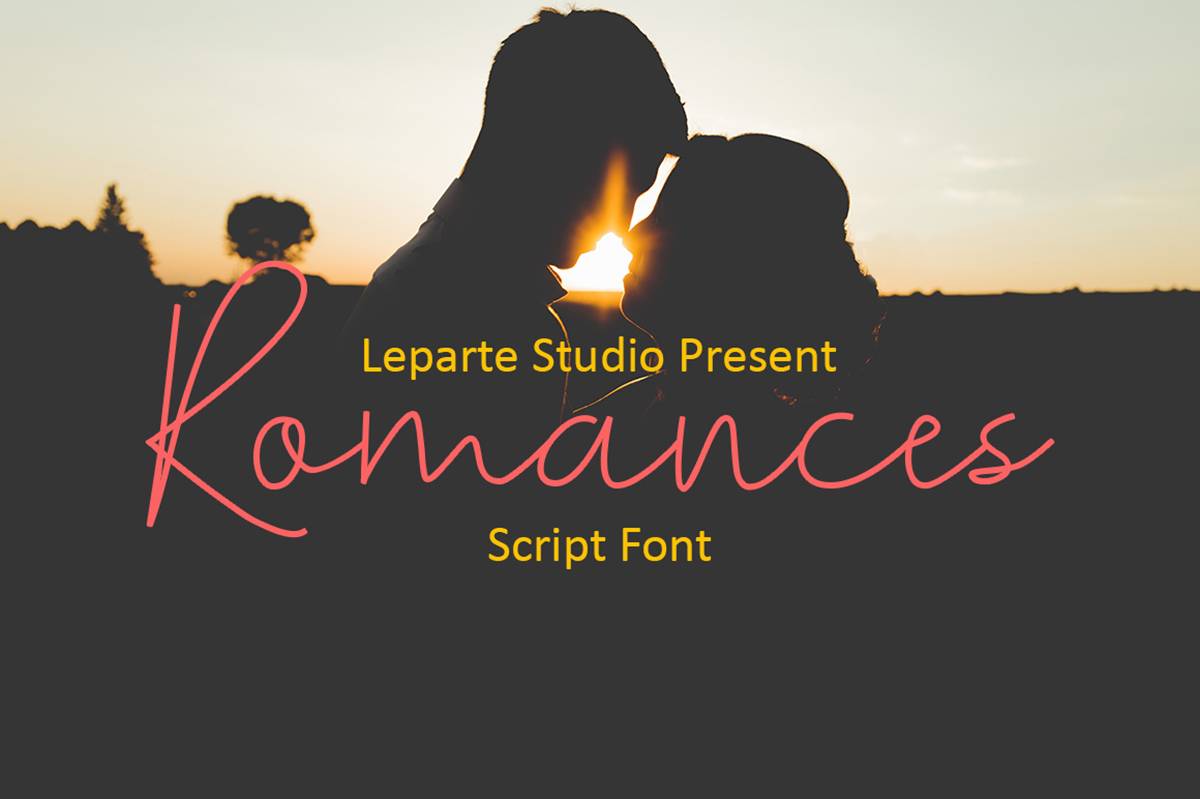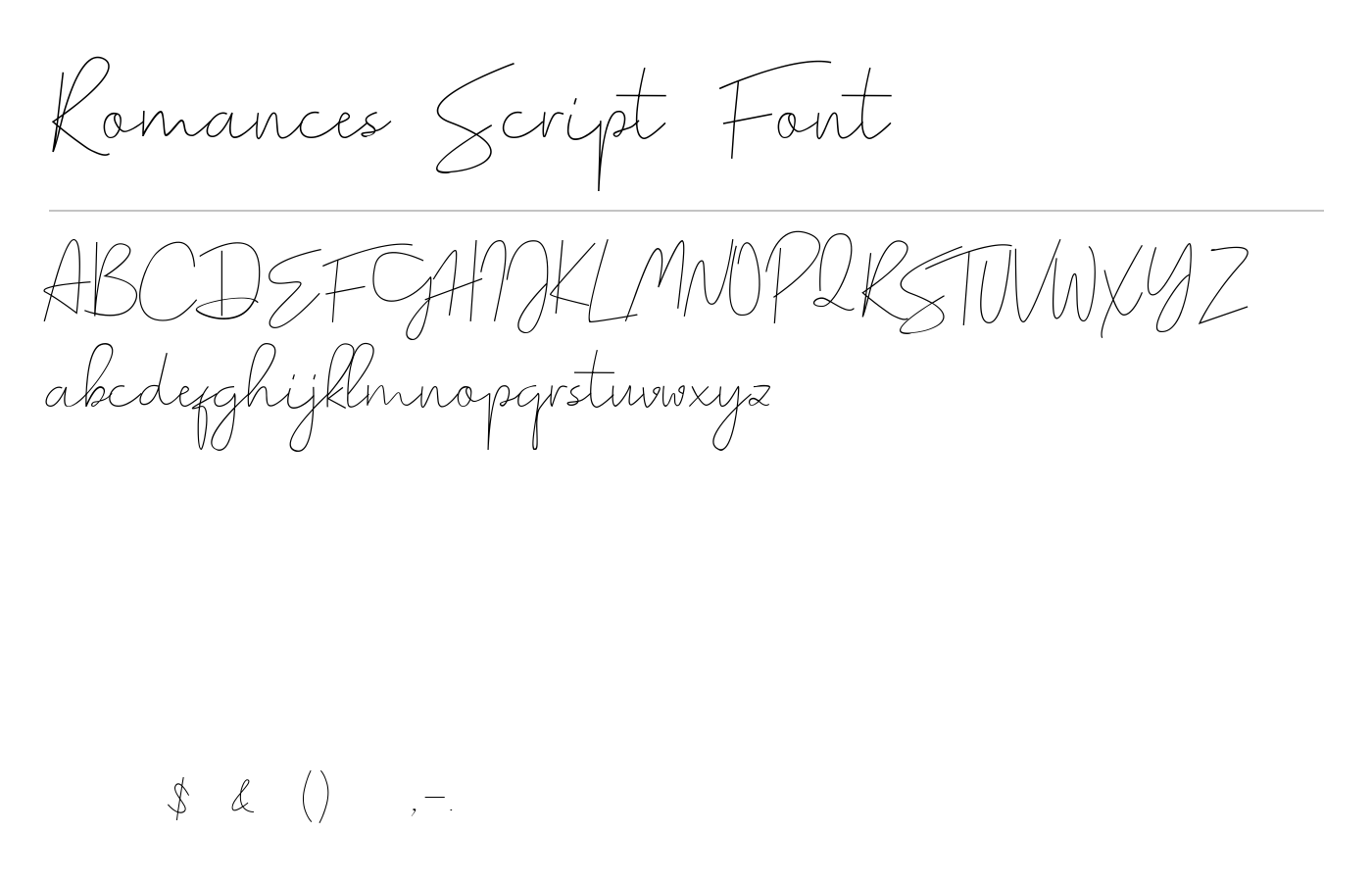
Romances Script Font is a delicate and elegant handwritten script featuring thin, flowing strokes that evoke a refined, personal touch. Its tall, narrow letterforms and graceful curves lend a sophisticated, airy feel, making it ideal for stylish branding, wedding invitations, and creative projects that seek a romantic and modern handwritten aesthetic.
Romances Script Font
About Romances Script Font